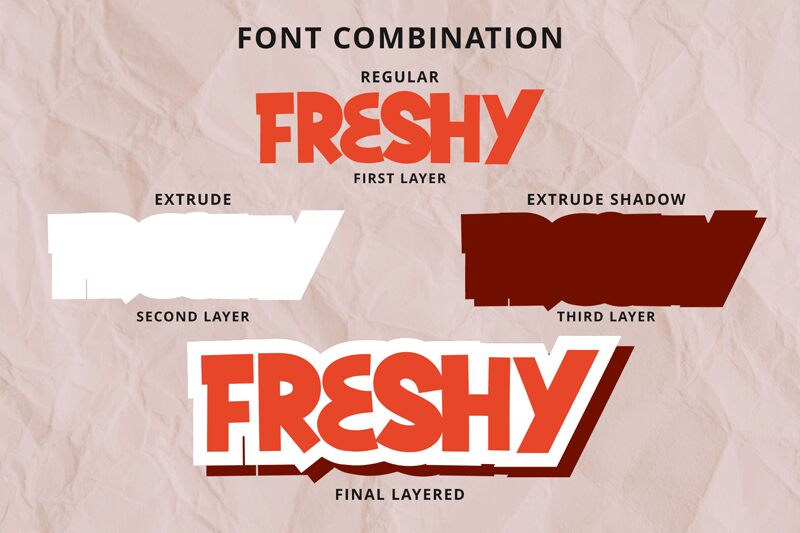
Richu Mast Extrude Shadow is a delightful display font from the renowned Mabhal Studio. With its ultra-bold weight and cartoon-inspired style, this font adds a playful touch to any project. Perfect for children's books, comic books, party invitations, and animated videos, Richu Mast Extrude Shadow brings characters to life with its charming and bold appearance. Its wide range of applications also includes branding projects, packaging design, and advertising campaigns. Get ready to captivate your audience with this whimsical font that exudes creativity and fun in every letter.
Prezentacja i próbka wizualna czcionki Richu Mast Extrude Shadow
Richu Mast Extrude Shadow